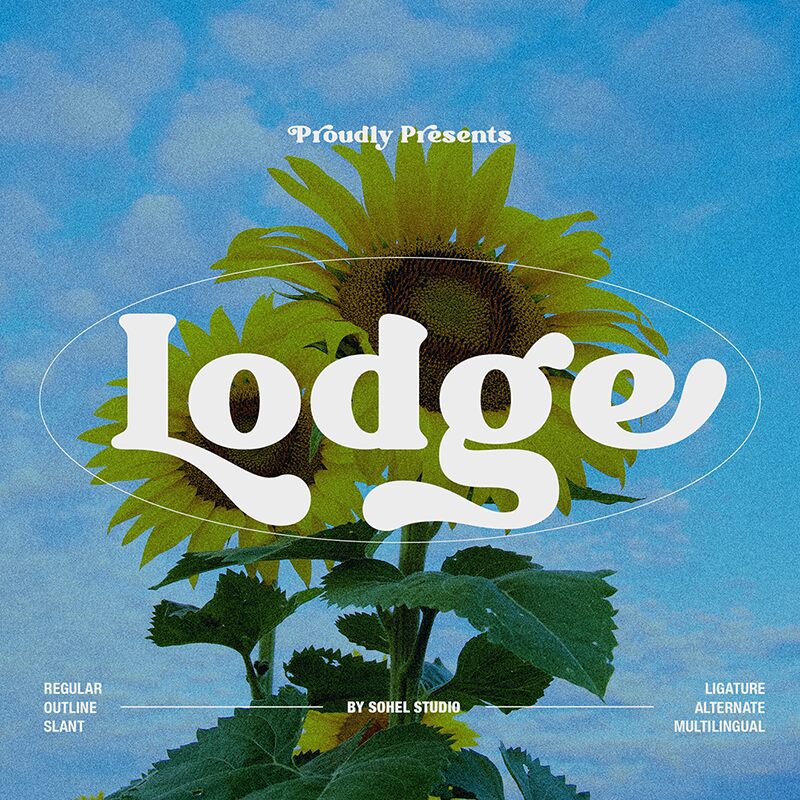
Lodge font by Sohel Studio is a free display font with a decorative style. This retro-inspired typeface offers a vintage aesthetic that adds an expressive personality to typography. Its whimsical touch is highlighted in each character as it combines multiple elements into one beautiful design.
Use Lodge in posters, logos, packaging designs, greeting cards, movie titles, and magazine or book covers. Create designs for online platforms including banners and social media posts or use the font for printed projects like brochures and business plans.